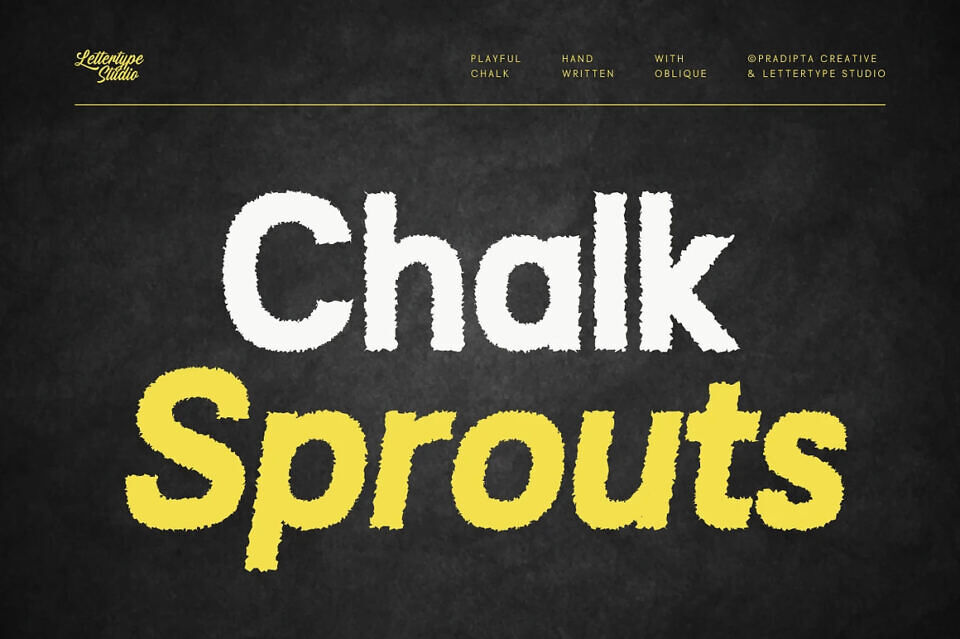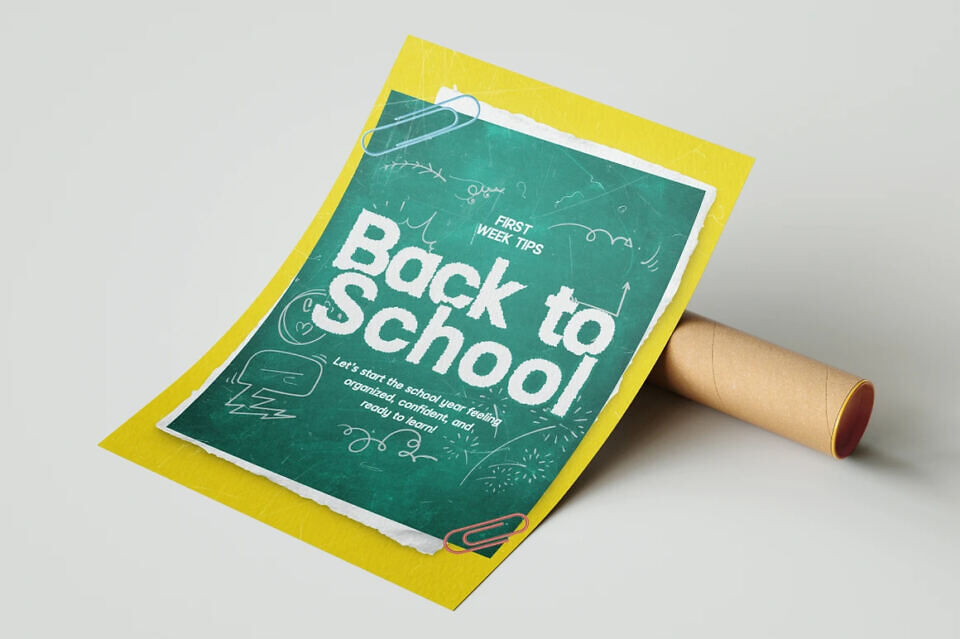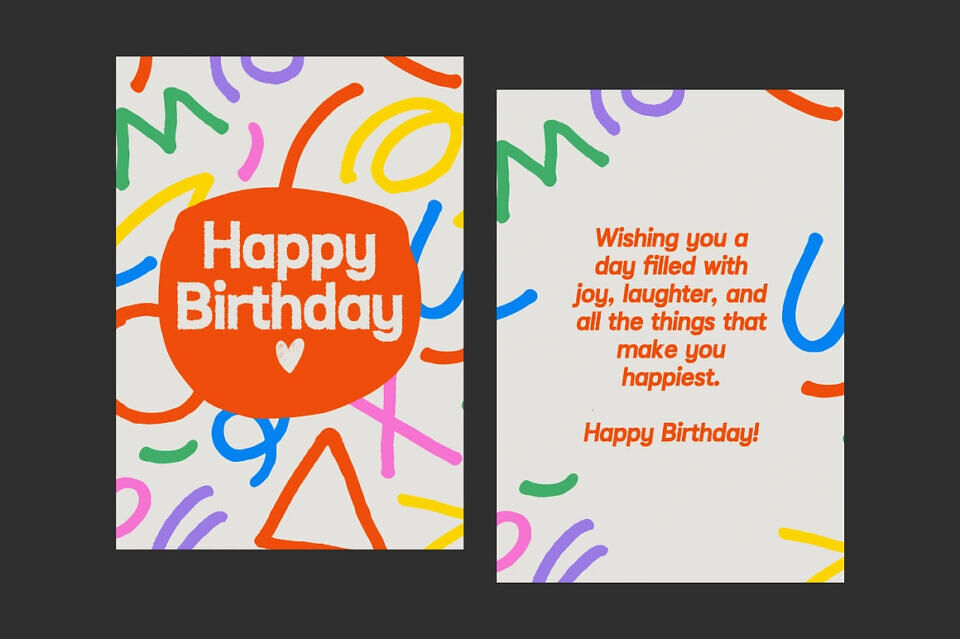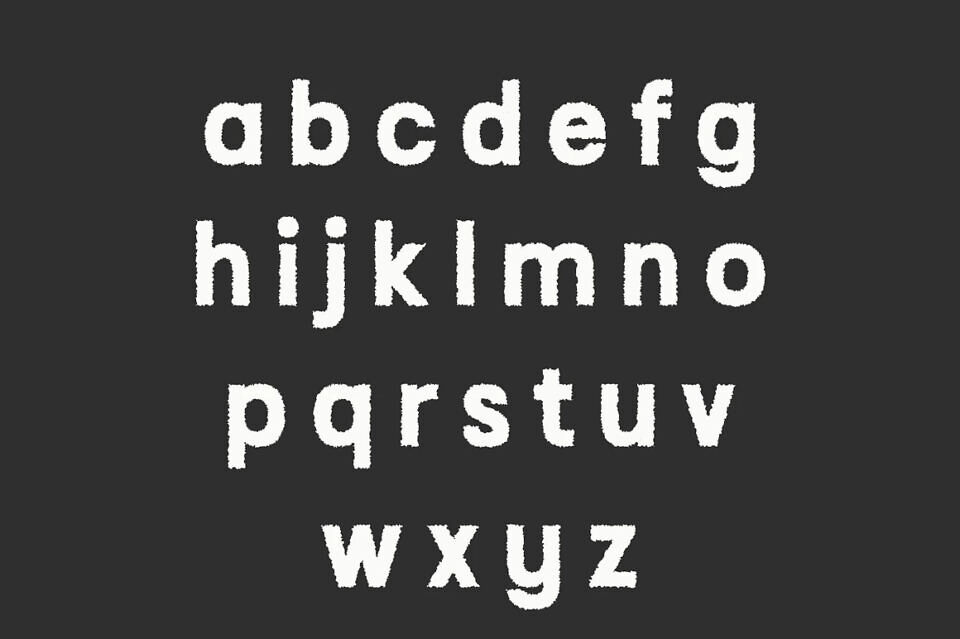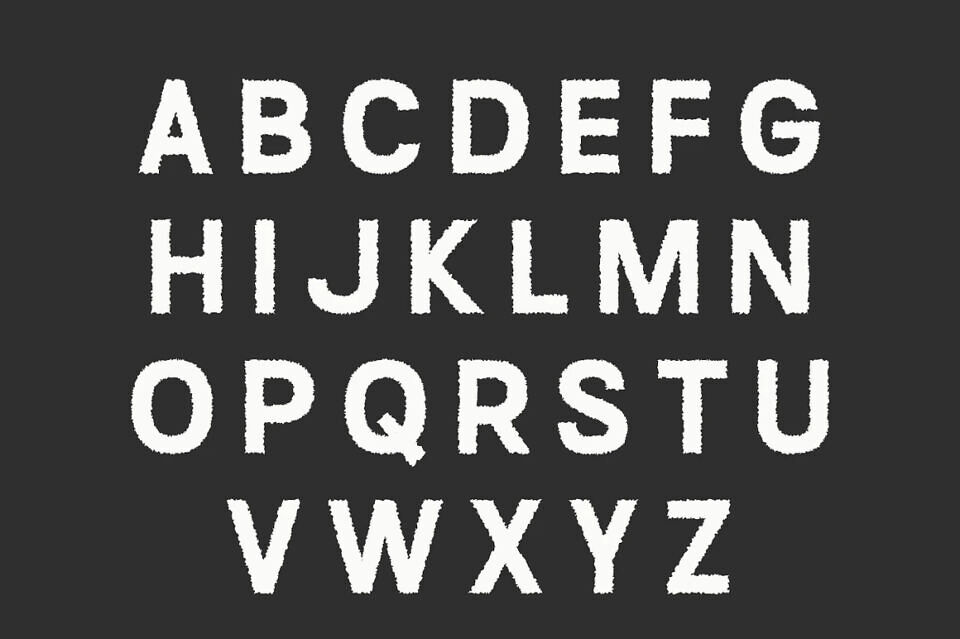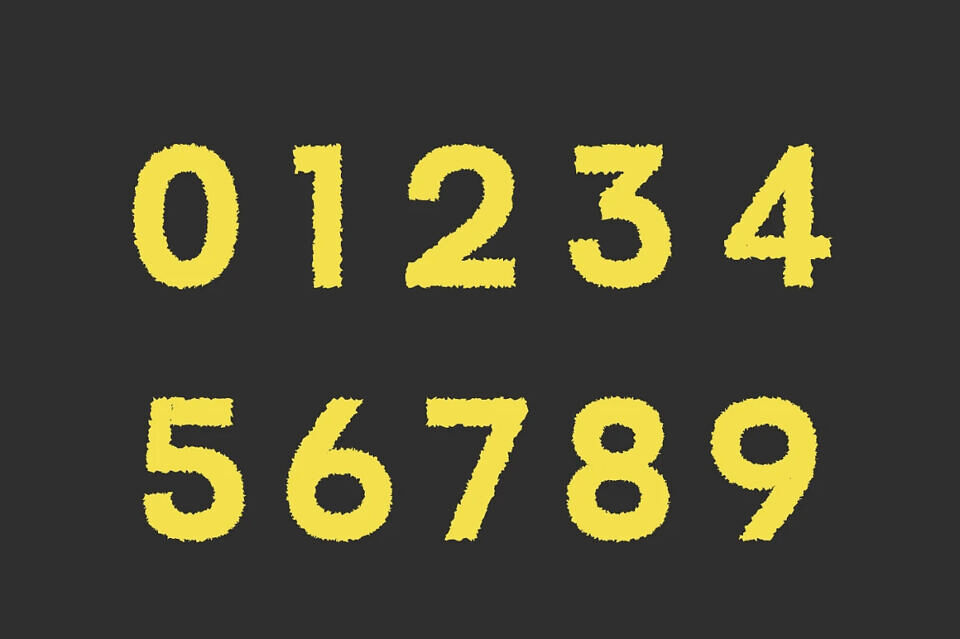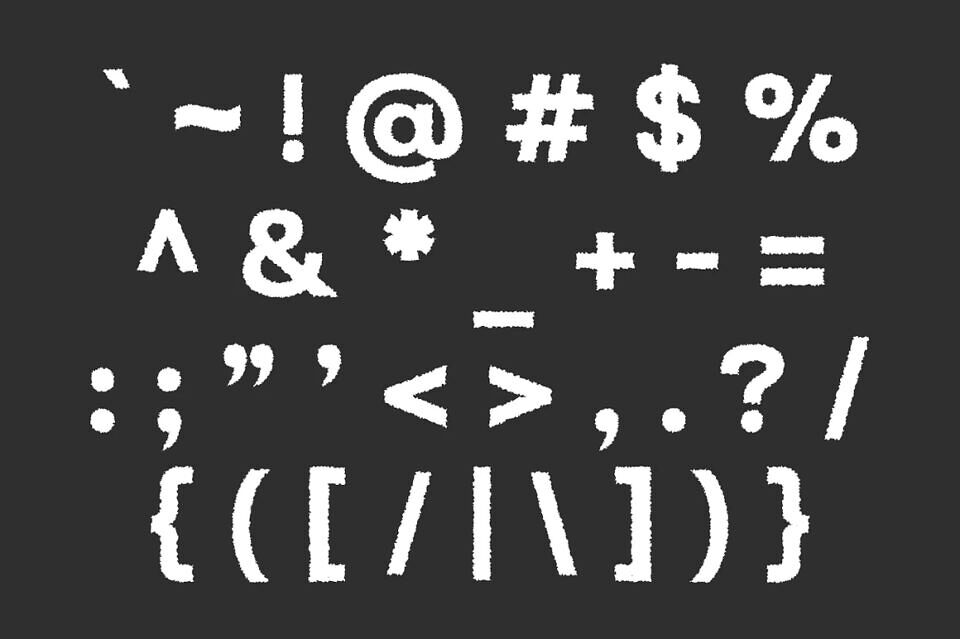
Chalk Sprouts Font is a playful handwritten chalk typeface full of energy and charm. Its rough textured strokes authentically mimic chalk on a blackboard, making it ideal for educational materials, café menus, food packaging, children’s projects, party invitations, and social media designs.
With its approachable and organic feel, Chalk Sprouts adds personality to any layout. Featuring alternate characters, natural imperfections, and multilingual support, it delivers an authentic handmade touch. Versatile and engaging, this font seamlessly adapts to both creative and professional projects with ease.